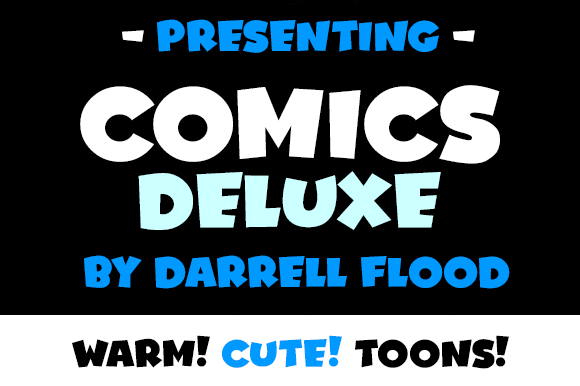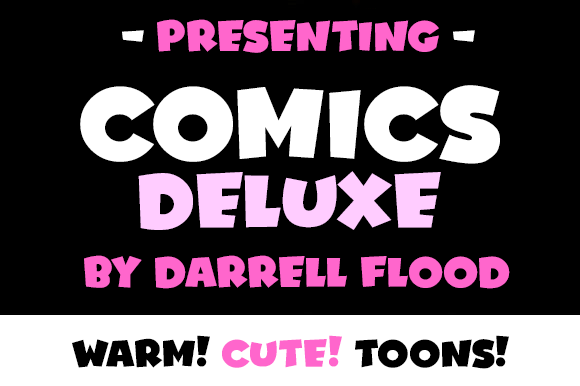
Introducing Comics Deluxe Font: The Ultimate Choice for Family-Friendly Designs
Are you a designer, crafter, or artist looking for a font that can add a touch of warmth and excitement to your family-friendly projects? Look no further than Comics Deluxe Font! This bouncy, fun font is designed in a cute, rounded cartoon style that’s perfect for a wide range of applications, from cartoons and comics to animations and more.
What Makes Comics Deluxe Font So Special?
Comics Deluxe Font is a unique and versatile font that’s specifically designed to bring a sense of fun and playfulness to your designs. Its rounded edges and bouncy curves make it perfect for creating eye-catching and engaging content that’s sure to delight audiences of all ages. Whether you’re working on a children’s book, a cartoon series, or an animated film, this font is sure to add a touch of magic to your project.
Key Features of Comics Deluxe Font
- Cute and Rounded Cartoon Style: Comics Deluxe Font features a distinctive cartoon style that’s both cute and rounded, making it perfect for family-friendly designs.
- Bouncy and Fun: The font’s bouncy curves and playful edges add a sense of energy and excitement to your designs.
- Versatile: Comics Deluxe Font can be used for a wide range of applications, from cartoons and comics to animations, children’s books, and more.
- Warm and Inviting: The font’s warm and inviting style makes it perfect for creating content that’s both engaging and accessible.
Comics Deluxe Font is a dream come true for designers and crafters who want to create family-friendly content that’s both fun and engaging. Whether you’re working on a DIY project, a client’s design brief, or your own personal creative endeavor, this font is sure to inspire your creativity and bring your ideas to life.
Ideas for Using Comics Deluxe Font
- Children’s Books: Use Comics Deluxe Font to create engaging and interactive children’s books that are sure to delight young readers.
- Cartoons and Comics: Add a touch of fun and playfulness to your cartoons and comics with this versatile and engaging font.
- Animations: Use Comics Deluxe Font to create eye-catching and engaging animations that are perfect for kids’ shows, explainer videos, and more.
- Crafting Projects: Add a personal touch to your crafting projects, such as handmade cards, gift tags, and DIY decorations, with this fun and playful font.
Why Choose Comics Deluxe Font?
With so many fonts to choose from, why should you choose Comics Deluxe Font for your next project? Here are just a few reasons:
- Unique Style: Comics Deluxe Font features a unique and distinctive style that’s sure to stand out from the crowd.
- Ease of Use: This font is easy to read and use, making it perfect for a wide range of applications.